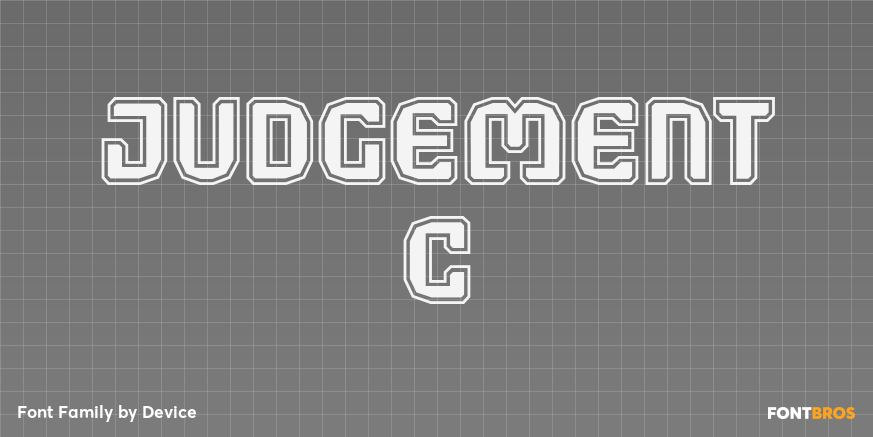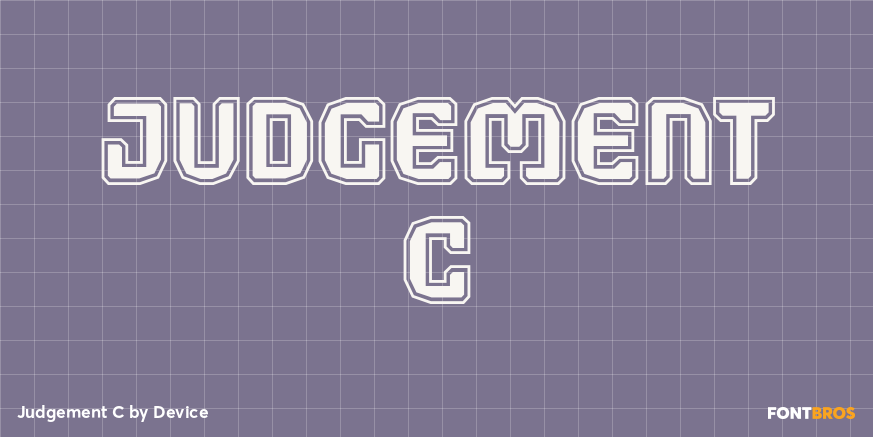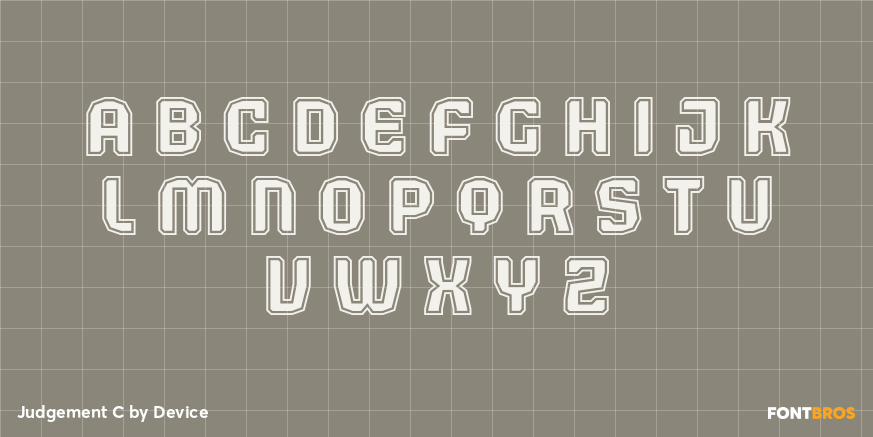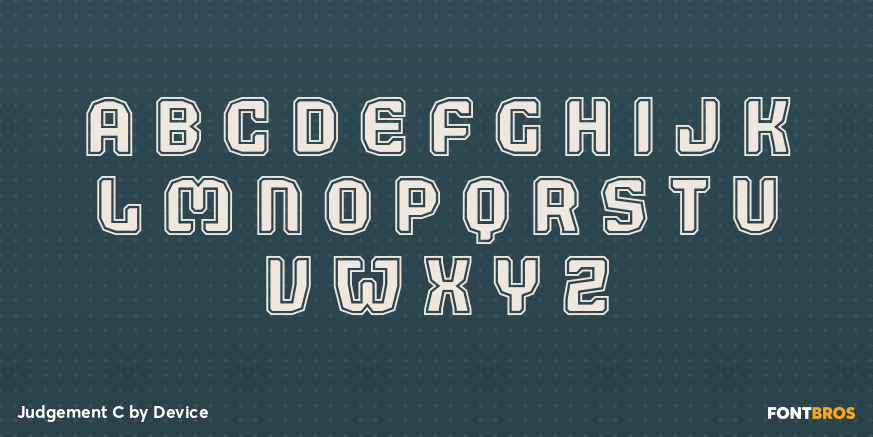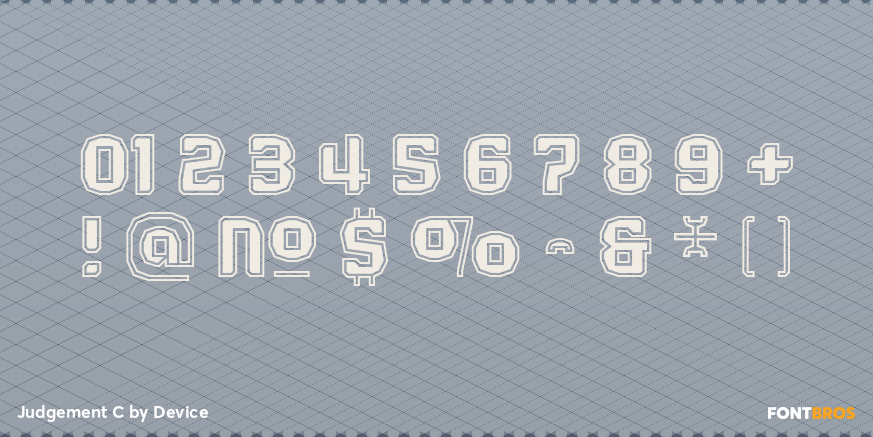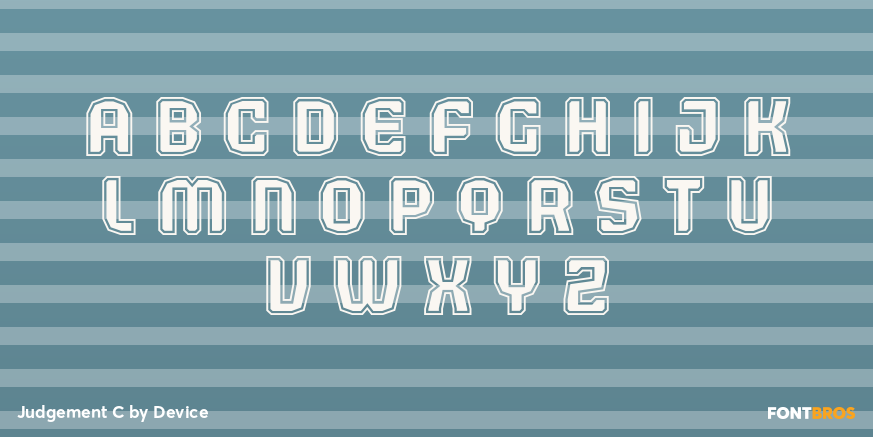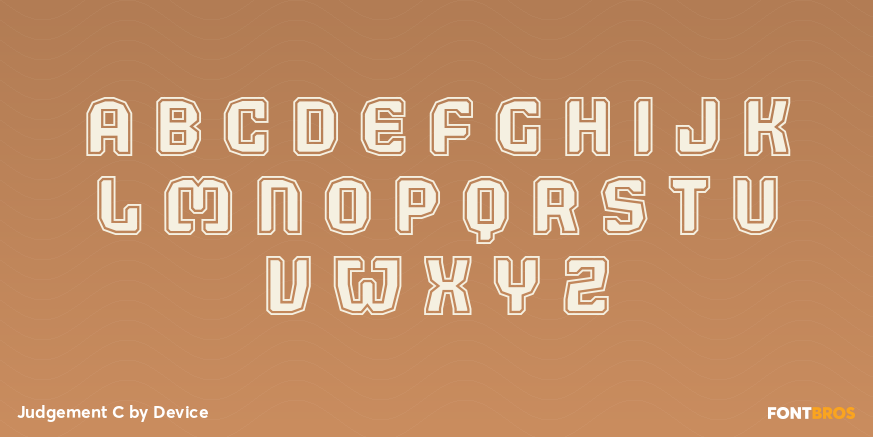
Judgement C
Font Family by Device Fonts
Judgement C is a futuristic special effect display family from Device, built for bold, dimensional typography. Its heavy forms and stylized treatments give it a cinematic, industrial feel that reads with impact in large settings.
The family includes 6 styles: Black Stencil Italic, Black Stencil, Black Shadow, Black Rimmed, Black Highlight, and Black Embossed. That mix makes it easy to shift from cutout stencil looks to shadowed, outlined, highlighted, and embossed effects while keeping a consistent visual voice.